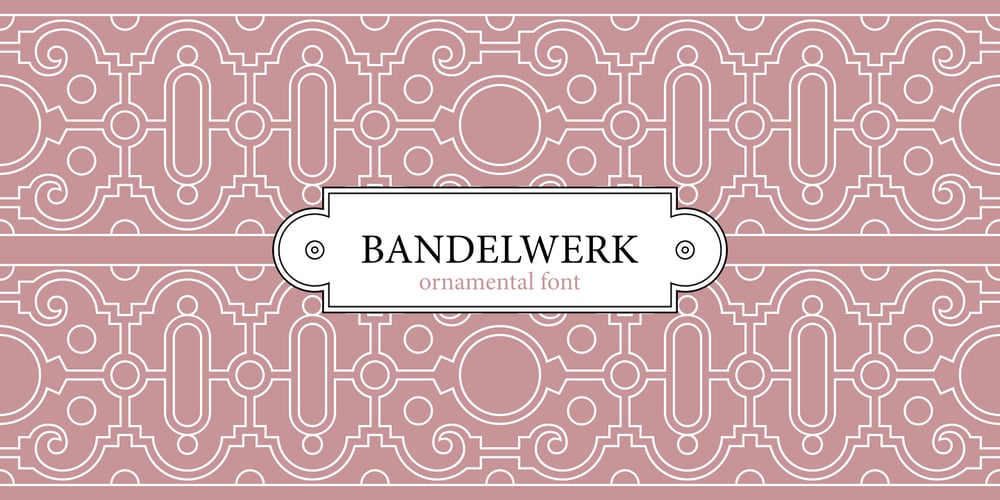
Bandelwerk Font Family was designed by Lukyan Turetskyy and published by 2D Typo. Bandelwerk contains 1 styles and family package options. Collection of ribbon geometrical ornaments, that were popular in Europe in the 16th and 17th centuries in the age of Mannerism. The given ornaments can be attributed to the styles of strapwork of bandelwerk.